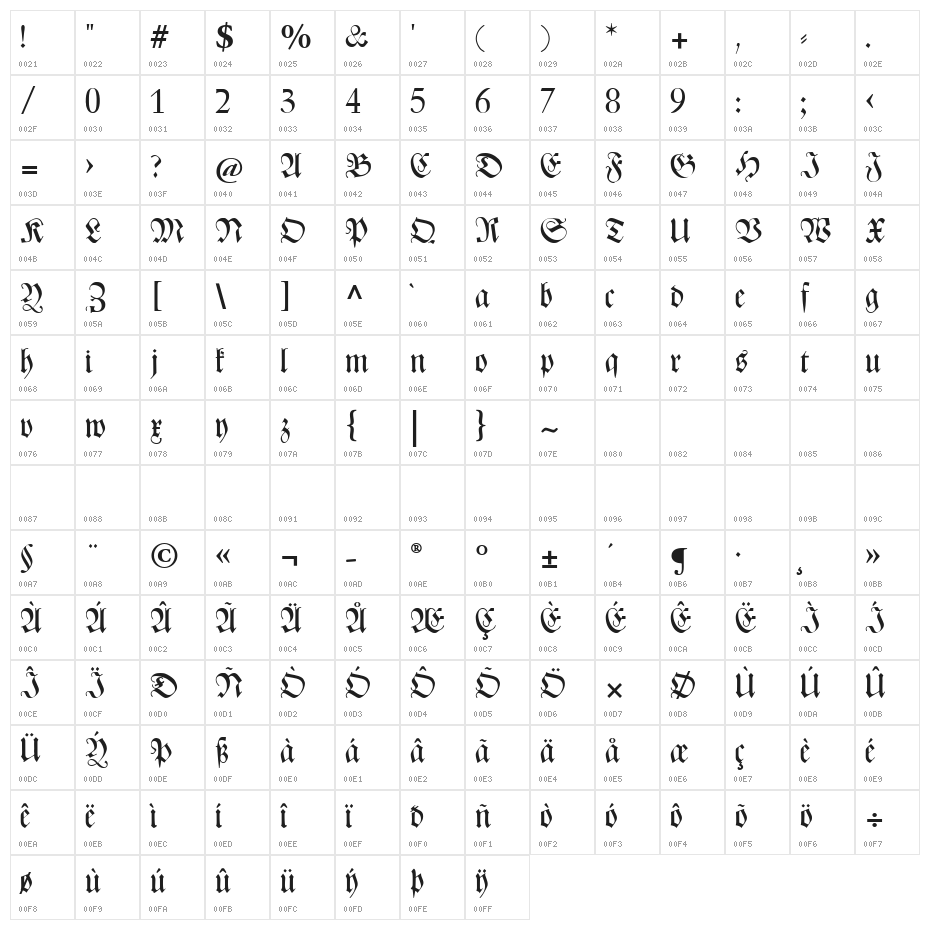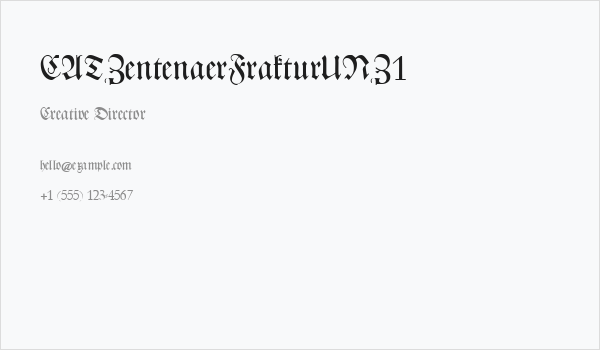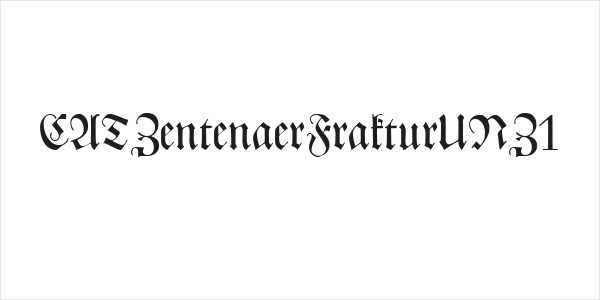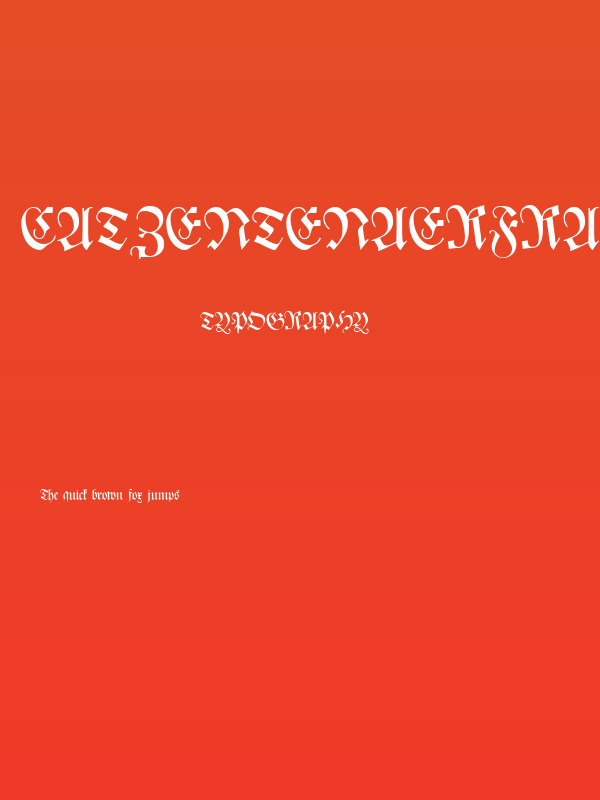
CATZentenaerFrakturUNZ1 Font
CATZentenaerFrakturUNZ1 Description
This font features a classic blackletter style, characterized by its intricate and ornate letterforms. The uppercase letters are highly decorative with sharp angles and elaborate curves, reflecting a traditional Gothic aesthetic. The lowercase letters maintain a similar style but with slightly less ornamentation, ensuring readability while preserving the historical feel. The numerals are bold and consistent with the overall design, offering a strong presence. Special characters are designed to match the font's elaborate style, making them suitable for decorative purposes. This font is perfect for projects that require a historical or medieval touch, such as invitations, certificates, or branding for vintage-themed products.